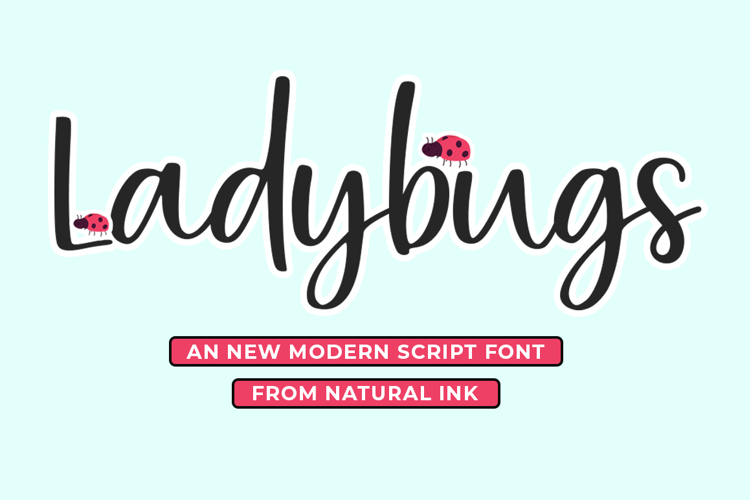
Ladybugs
Casting a fun and engaging aura, Ladybug font embodies the whimsical charm of handmade stylistic gestures. This hand affectionate font features gentle arcs and cheerful characters, setting in an inviting, jovial, and accessible emotion for every creative design.
Ladybug has been meticulously sculpted to match the intimate feel of honest handwriting; striking a seamless balance of fluidity and space, throwing in delicate flaws that bring it to life. This font thrives in an array of creative avenues ranging from brand identities to personalized invitations, sophisticated logos, engaging packaging, interactive social posts, to kid-friendly designs, and beyond.
Whether your creative endeavor speaks the soft language of casual charm, cuddly allure, or emotional subtlety, Ladybug adds a captivating touch that differentiates yet harmonizes. This hand-drawn style font with fluid character forms is uncluttered and reader-friendly, operating impressively in both digital and print landscapes.
Fit for branding, impactful quotes, intimate invites, and so much more, Ladybug surpasses being just a font. It’s a delightful illustration of inventiveness that instills personality and joy into your designs.